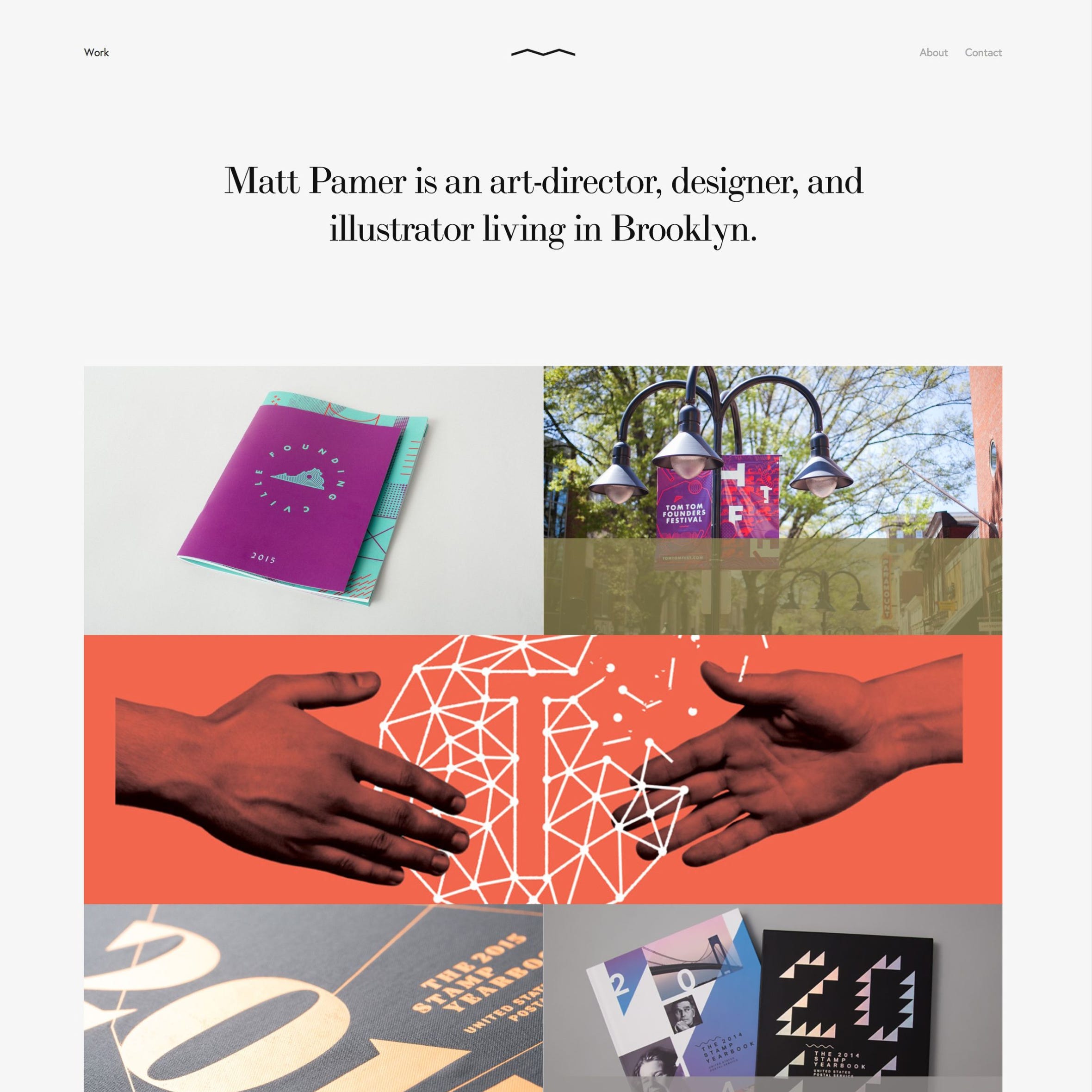
10 Great Fonts for Portfolio Design by Medium
Best Fonts For Portfolio. Web they can communicate the personality of the portfolio owner and set the tone for your work. Web other good fonts for portfolio include open sans, futura pt, roboto, lato, helvetica neue, adelle, gotham, georgia, poppins,.
Web other good fonts for portfolio include open sans, futura pt, roboto, lato, helvetica neue, adelle, gotham, georgia, poppins,. Web they can communicate the personality of the portfolio owner and set the tone for your work.
Web other good fonts for portfolio include open sans, futura pt, roboto, lato, helvetica neue, adelle, gotham, georgia, poppins,. Web they can communicate the personality of the portfolio owner and set the tone for your work. Web other good fonts for portfolio include open sans, futura pt, roboto, lato, helvetica neue, adelle, gotham, georgia, poppins,.